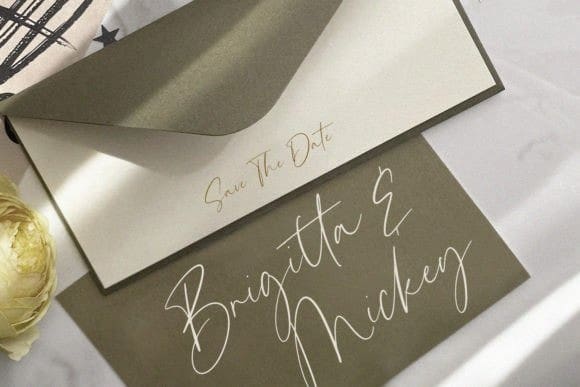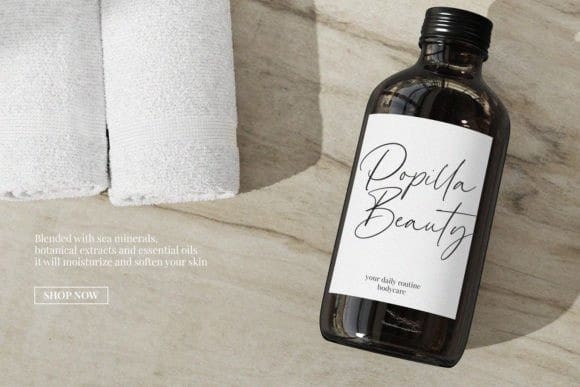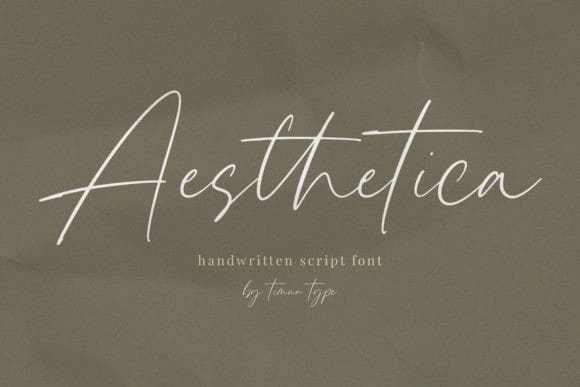
Aesthetica Handwritten Font
Aesthetica Handwritten Font, is a sleek script font that was created with great care, especially for you! 😊
Aesthetica is perfect for product packaging, branding project, magazines, social media, weddings, or just used to express words above the background.